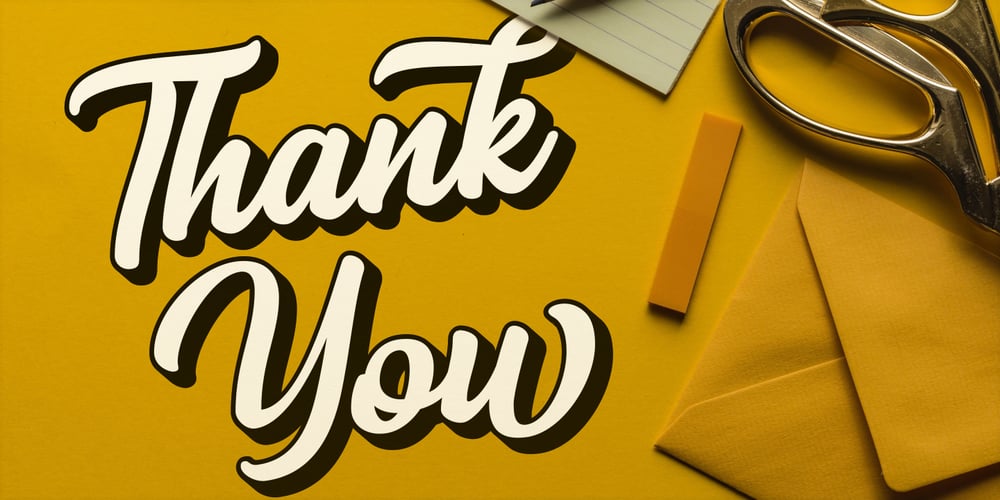
Mackless Script Font Family was designed by Faja Abdul Fatah and published by Sibelumpagi. Mackless Script contains 2 styles and family package options. Mackless is a clean script font inspired by hand-lettering, bold script, brush script, and logotype. It comes with an extra extruded font for a good combination on your design need, and includes OpenType features with PUA encoded such as alternates and ligatures. Mackless would be good for branding, logotype, poster, badge, book cover, invitation, t-shirt design, packaging and many more.